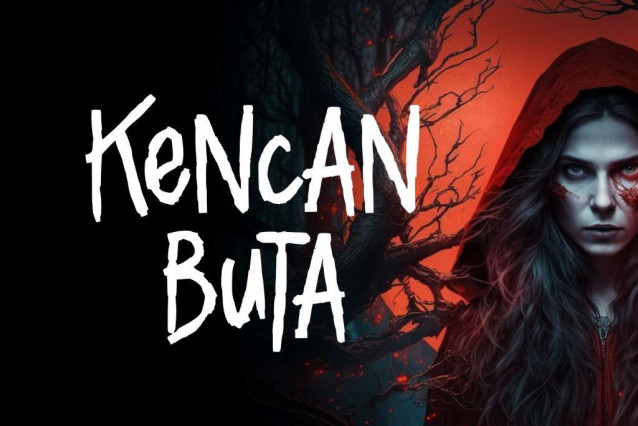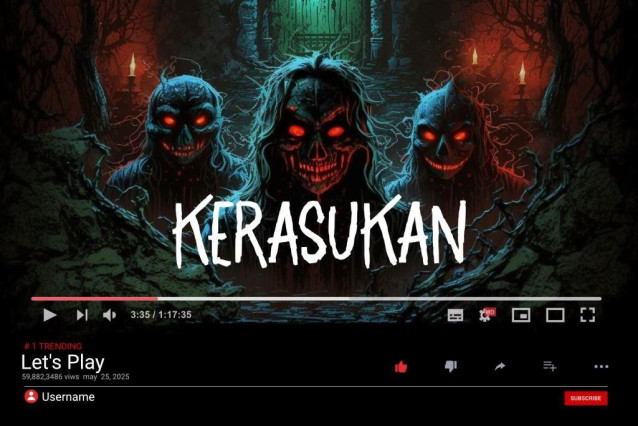
Fakeblood Horror Font
Fakeblood Horror Font is an intriguing horror font with unique characteristics that make it an exceptional choice for designs requiring an eerie yet simple touch. The font combines simplicity with a random, rough texture, creating a mysterious impression that makes the design look stunning.
Fakeblood provides an opportunity for designers to create stunning designs with a simple yet effective horror touch. In other words, it’s an ideal choice for instilling an eerie atmosphere in your designs.